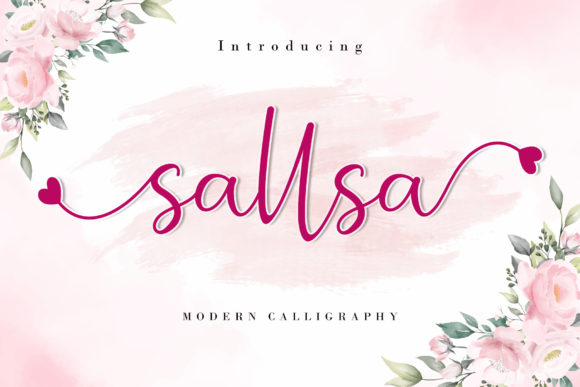
Embark on a typographic journey with Sallsa Font, a captivating script font family that will transform your creative visions into enchanting realities. A creation of AEN Creative Studio, Sallsa embodies the essence of elegance and charm, leaving an indelible mark on your designs. With its captivating curves and delicate strokes, Sallsa is a symphony of visual delight, perfect for adding a touch of handwritten magic to your projects.
Experience the allure of Sallsa as it gracefully adorns your wedding invitations, imbuing them with a timeless elegance that reflects the love and joy of your special day. Let Sallsa's enchanting swashes and glyphs elevate your thank-you cards, expressing gratitude with a personal touch that resonates with your recipients. Transform quotes into works of art, as Sallsa's fluid lines and graceful characters bring depth and emotion to your words.
With Sallsa, greeting cards become more than mere messages; they become cherished keepsakes, carrying heartfelt sentiments in a font that radiates warmth and sincerity. Craft logos and business cards that exude professionalism and creativity, leaving a lasting impression on clients and colleagues alike. Unleash Sallsa's versatility in any design that calls for a handwritten touch, be it posters, flyers, social media graphics, or website headings.
Sallsa's PUA encoding grants you effortless access to its full repertoire of glyphs and swashes, empowering you to unleash your creativity without limits. Experience the joy of seamless design integration as Sallsa effortlessly complements your design software, making it a breeze to incorporate its beauty into your projects.
Welcome Sallsa into your design arsenal and witness the transformation it brings. Its enchanting allure will captivate your audience, leaving them spellbound by the magic of your creations. Embrace the beauty of Sallsa and elevate your designs to new heights of visual splendor.